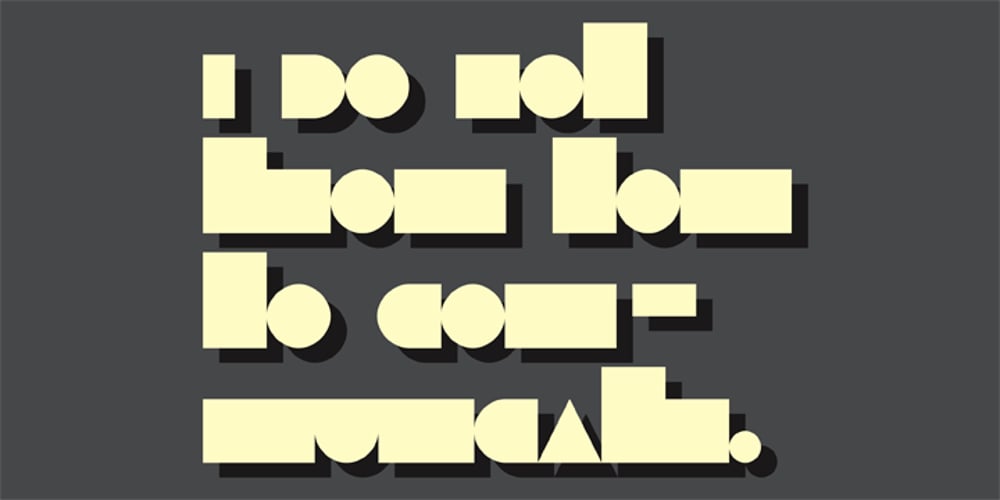
Shapabet Font Family was designed by Iain Budgen and published by Iain Budgen. Shapabet contains 2 styles and family package options. This font was inspired by cryptology and taking letterforms back to basic shapes. Some letters would take the same shapes as others just to complicate things and each word would also be joined together to create a unique shape. This obviously is not intended to spell out entire sentences, but rather to be used decoratively and in a fun creative manner.